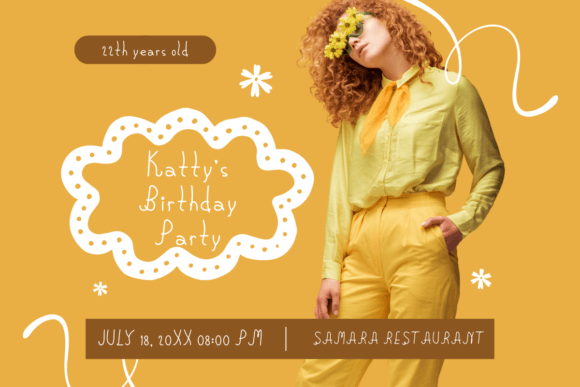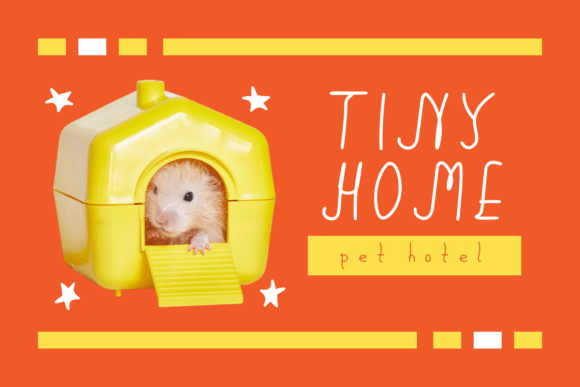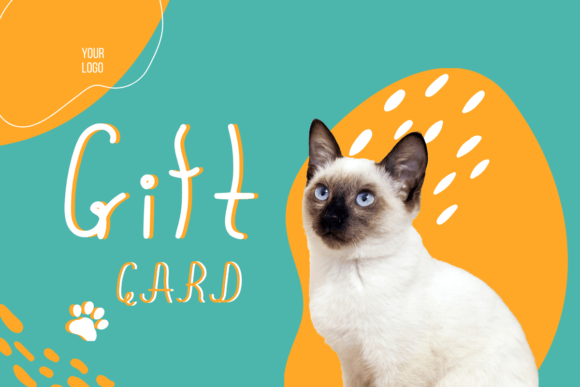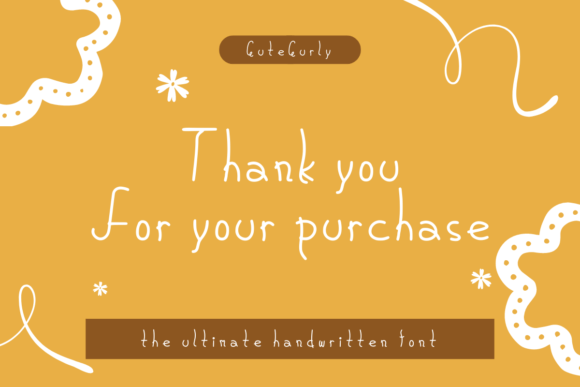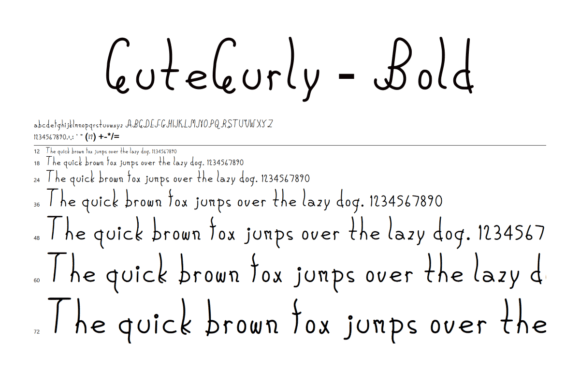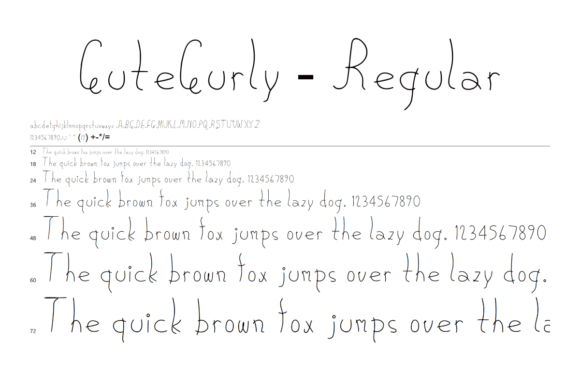
Introducing CuteCurly: The Ultimate Handwritten Font for Creative Projects
I’ll never forget the time I was working on a birthday party invitation for my niece’s 5th birthday. I had the design all planned out, but something was missing – the perfect font. I scrolled through my font library, but nothing seemed quite right. That’s when I stumbled upon CuteCurly, a beautiful handwritten font that added a touch of whimsical charm to the invitation. It was love at first sight! 🎉
With its gentle curves and playful strokes, CuteCurly brings a delightful flair to any project. Whether you’re planning a birthday party, designing a craft, or creating a greeting card, this font is a must-have for all your creative endeavors.
An Honest Review of CuteCurly
What I Love About CuteCurly ✨
- ✅ The font’s playful and whimsical design makes it perfect for creative projects
- ✅ The gentle curves and strokes add a touch of elegance to any design
- ✅ CuteCurly is highly versatile and can be used for a wide range of projects, from invitations to posters
- ✅ The font is easy to read, even in smaller sizes
- ⚠️ Some users may find the font a bit too playful for formal projects
- ⚠️ The font may not work well with very bold or bright color schemes
The Backstory Behind CuteCurly
CuteCurly was designed by a team of creative typographers who wanted to create a font that would bring a touch of whimsy and charm to everyday design projects. Inspired by the playful and elegant handwriting of children and artists, CuteCurly is a font that’s both fun and sophisticated.
| Font Name | Cutecurly Font |
| Author | Conceptty |
Q: What type of projects is CuteCurly best suited for?
A: CuteCurly is perfect for creative projects, such as invitations, greeting cards, posters, and crafts.
Q: Is CuteCurly available in different languages?
A: CuteCurly may not support all languages, but it does include a range of glyphs and characters for English and other European languages.